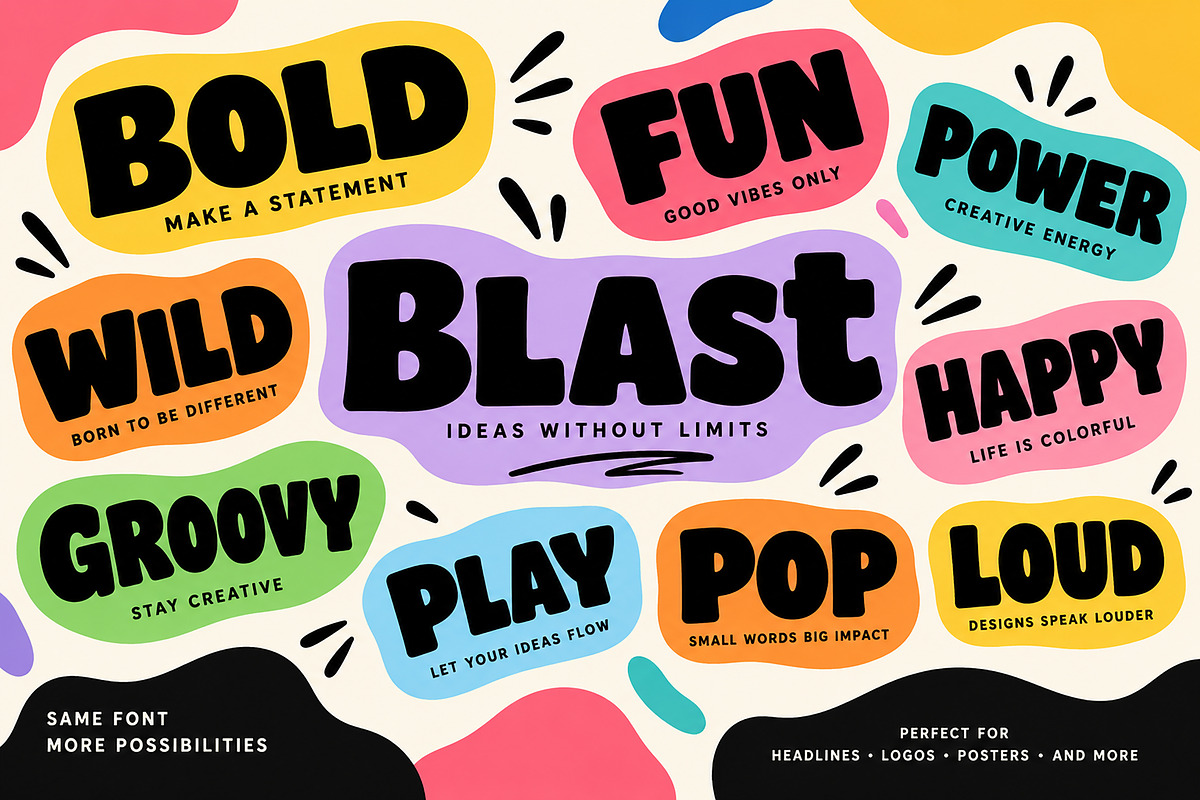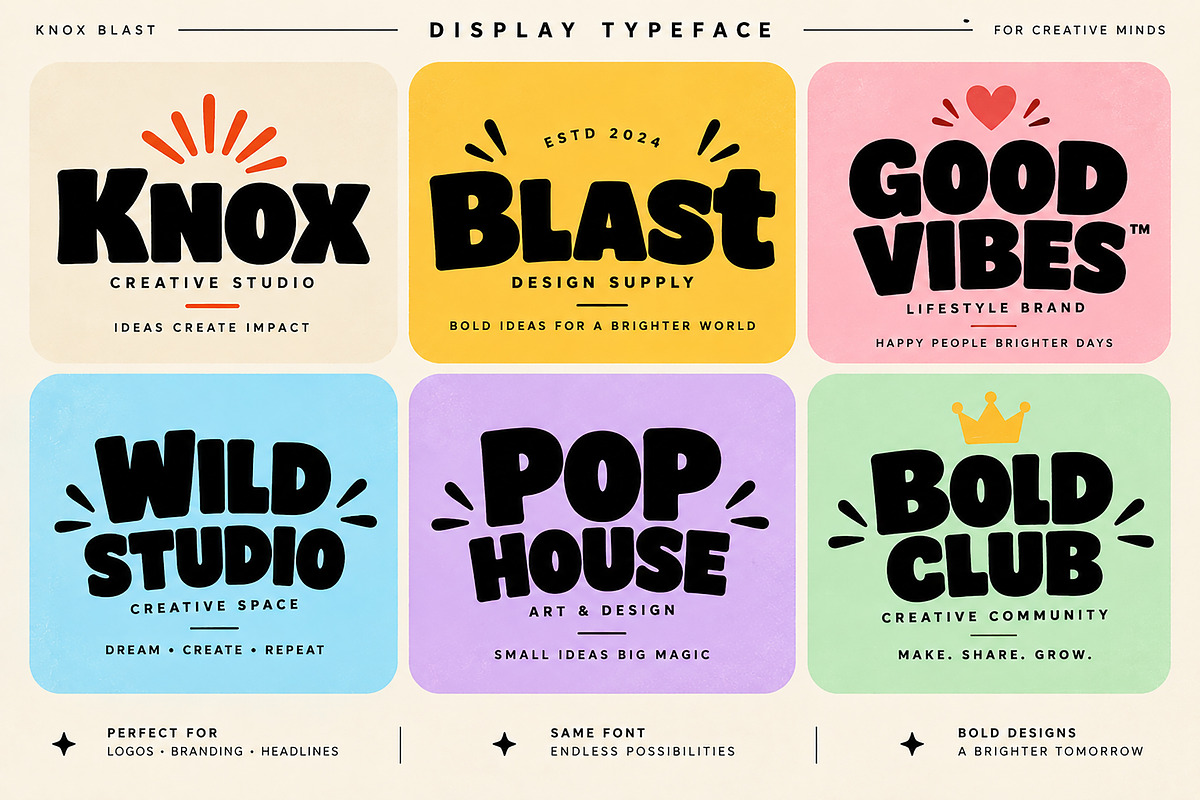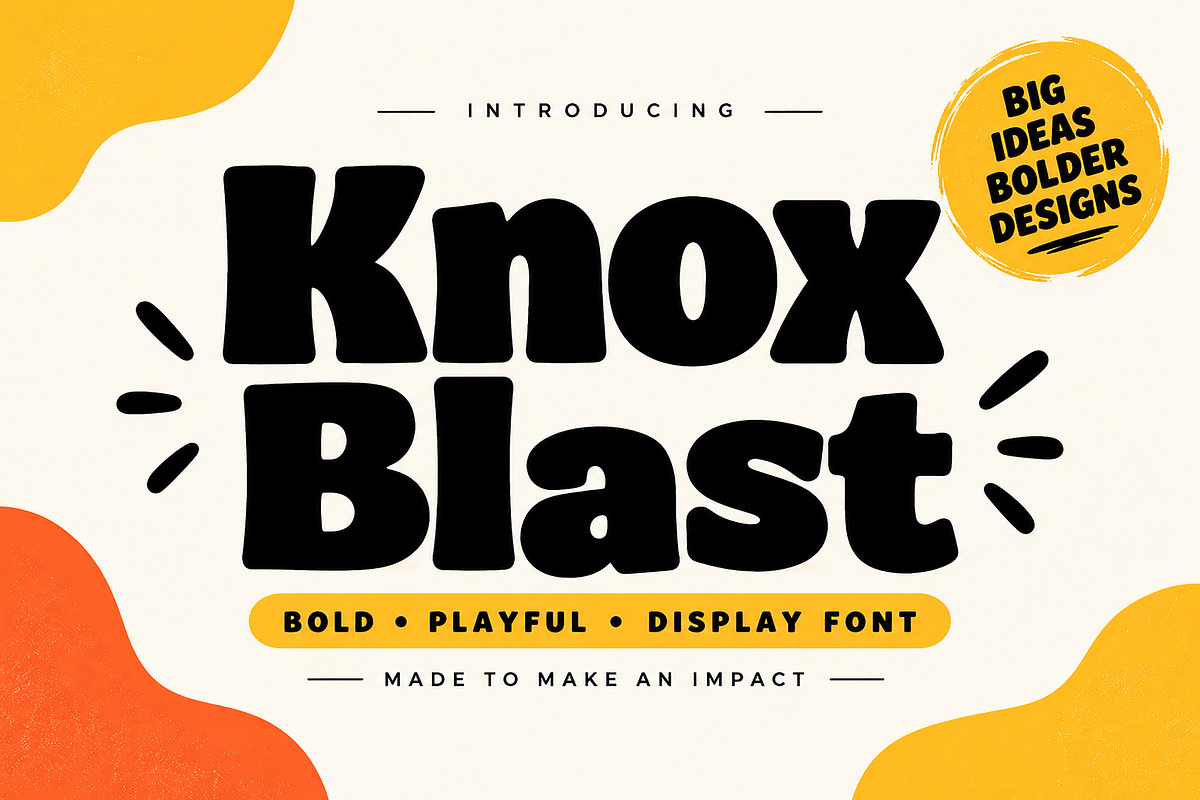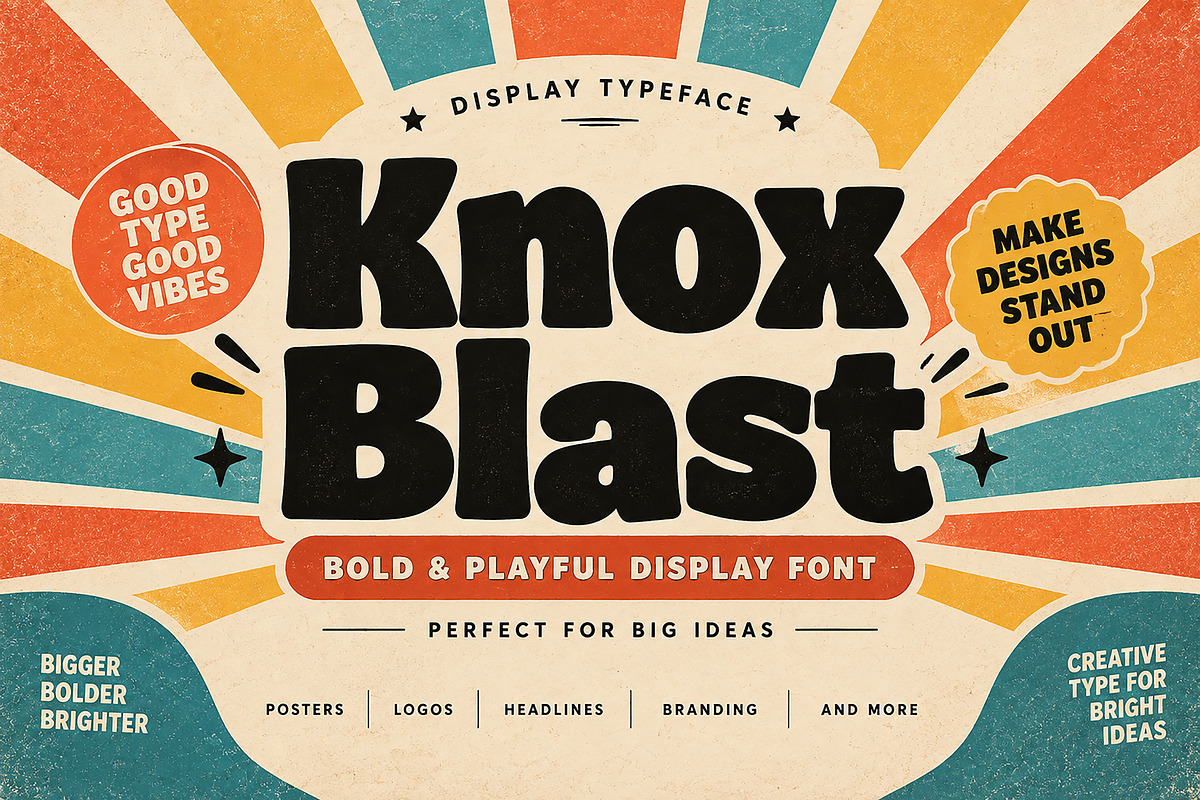
Knox Blast
Knox Blast is a bold and playful display font designed to make your typography stand out. With its chunky, rounded letterforms and strong visual presence, this typeface brings a fun, energetic personality to headlines, logos, posters, branding, packaging, social media graphics, merchandise, and other creative projects.
Its expressive and friendly style works especially well for retro-inspired designs, bold branding, eye-catching titles, children's and lifestyle projects, stickers, apparel, promotional graphics, and attention-grabbing typography compositions.
Whether you are creating a memorable brand identity or simply need a typeface that makes a statement, Knox Blast is built to bring impact and personality to your designs.
Logo & Branding Design
Posters & Headlines
Merchandise & Apparel
Stickers & Labels
Advertising & Promotional Design
Editorial & Title Design
Retro & Playful Designs
Creative Typography Projects
Style: Bold & Playful Display Font
Type: Display Typeface
Make bold ideas stand out with Knox Blast!